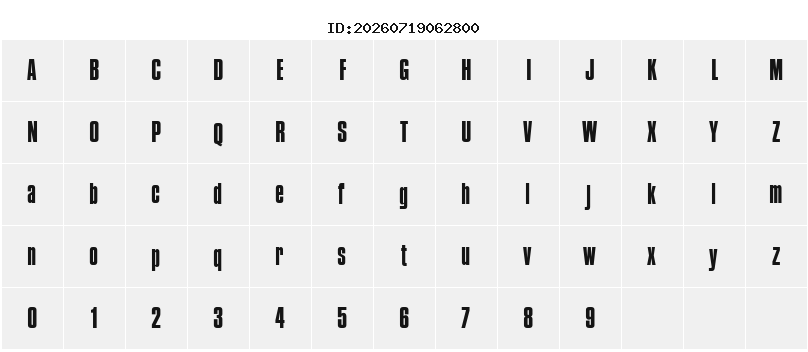
• Font Name: Compacta LET
• Full Font Name: Compacta LET
About Compacta LET.ttf
Compacta LET.ttf is a modern, elegant sans-serif font designed for ultimate readability and visual harmony. Perfect for branding, headlines, web design, and print materials.